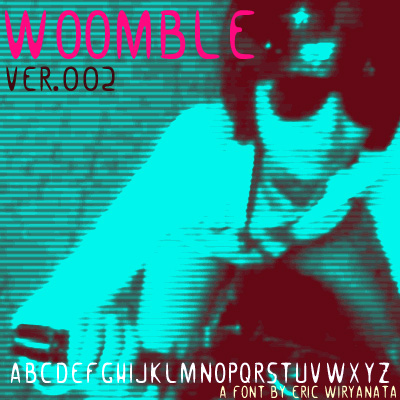
Font name: | Woomble 002 |
Author: | The Space Wanderer |
Note by The Space Wanderer | |
By Eric Wiryanata. December 2006. Woomble was taken from a band frontman. if you share the same musical taste you'll know who he is. but the design was coming nowhere from him, i just thought it would fit. the second version was a modification from the original version. |